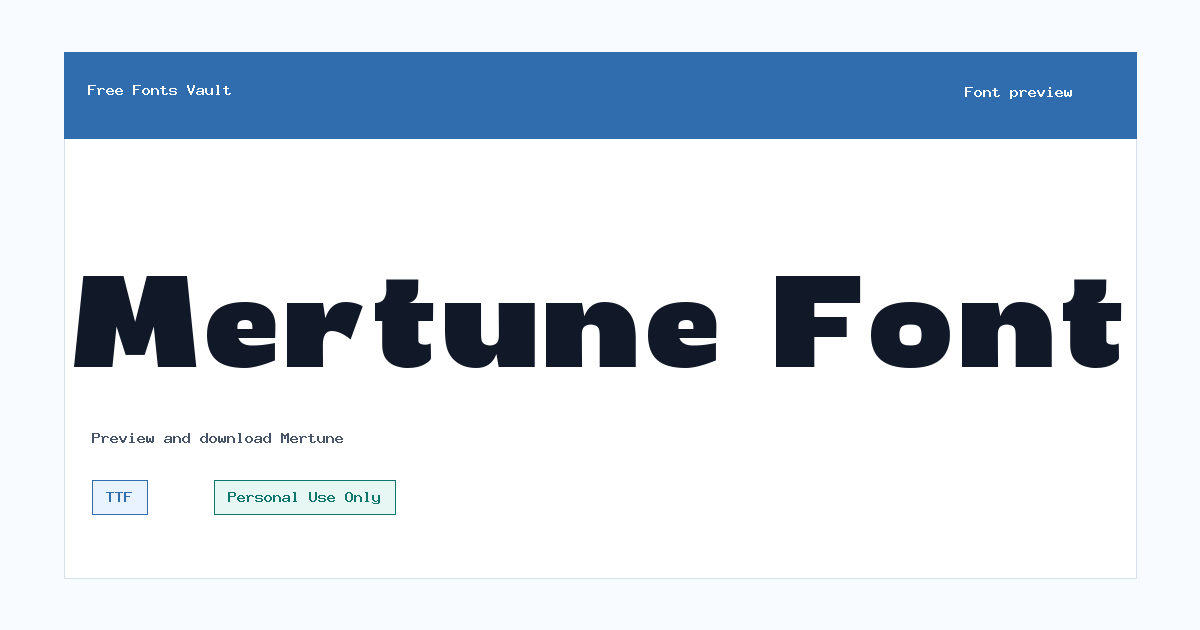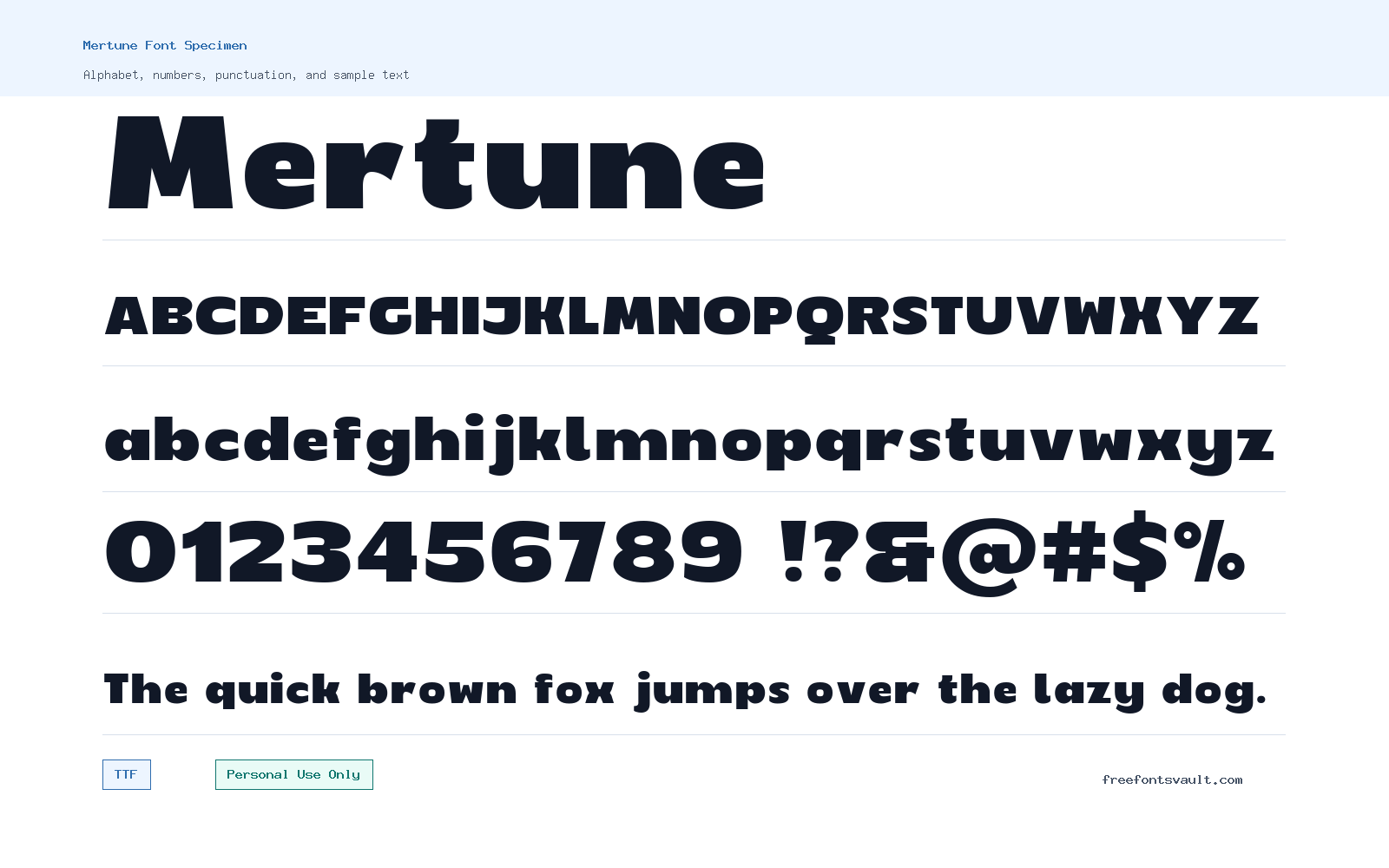
Mertune
- Designer Muhamad Fikry Nuralif
- Foundry Fikryal Studio
Mertune font.
Mertune is a sans serif font family for personal design projects, with upright, italic, bold, and bold italic styles in TTF format. It is a useful choice to test when you need a clean text style with enough weight range for simple layouts, headings, and mockups.
About Mertune Font
Mertune is credited to Muhamad Fikry Nuralif and Fikryal Studio. The family is presented as a sans serif, which makes it a practical option for visitors who want a straightforward font for titles, short blocks of text, social graphics, and early brand concept work. Because the package includes regular, italic, bold, and bold italic styles, you can build basic hierarchy without mixing unrelated fonts right away. Use the regular style for neutral wording, the bold style for stronger titles or labels, and the italic styles for emphasis, captions, pull quotes, or softer secondary details.
For logo work, posters, web mockups, and presentation layouts, try Mertune with short phrases first. Test the brand name, a few menu labels, a headline, and a paragraph sample in the preview before using it across a whole design. Sans serif fonts can work well in modern layouts, but the final result depends on spacing, letter shape, size, and contrast. If you are building a logo or client-facing design, check how the font behaves in all caps, in lowercase, and at small sizes. For pairing, keep the companion font simple: a readable serif can add contrast for editorial designs, while another quiet sans serif can work for body copy if Mertune is used mainly for headings.
- Sans serif font family with regular, italic, bold, and bold italic styles.
- Useful style range for basic hierarchy: normal text, emphasized text, strong headings, and bold italic accents.
- A practical font to test in previews for headings, short descriptions, posters, branding drafts, and web layout mockups.
- Headlines, labels, captions, and short paragraphs that need regular and bold contrast.
What font styles are included with Mertune?
The family includes regular, italic, bold, and bold italic styles.
What should I pair Mertune with?
For contrast, try a readable serif for body text or supporting copy. For a cleaner interface-style layout, pair it with a neutral sans serif and let Mertune handle headings or key labels.
Is Mertune good for long paragraphs?
Test it before using it for long reading. The available styles give you useful hierarchy, but readability depends on size, spacing, line height, and the exact letterforms in your layout.